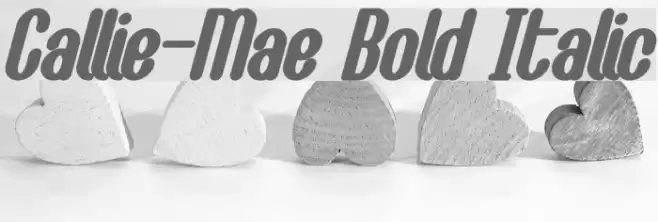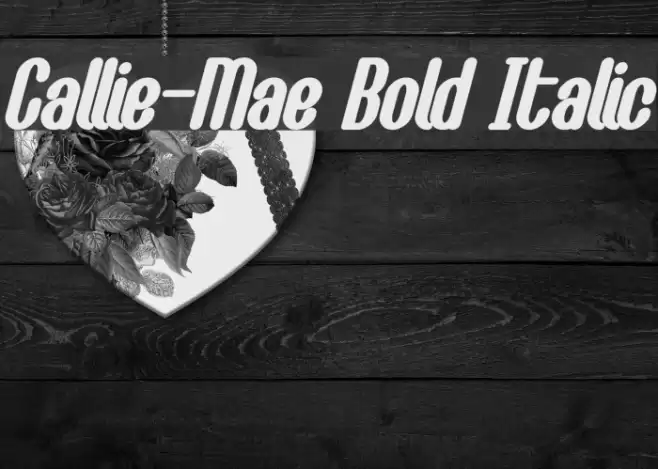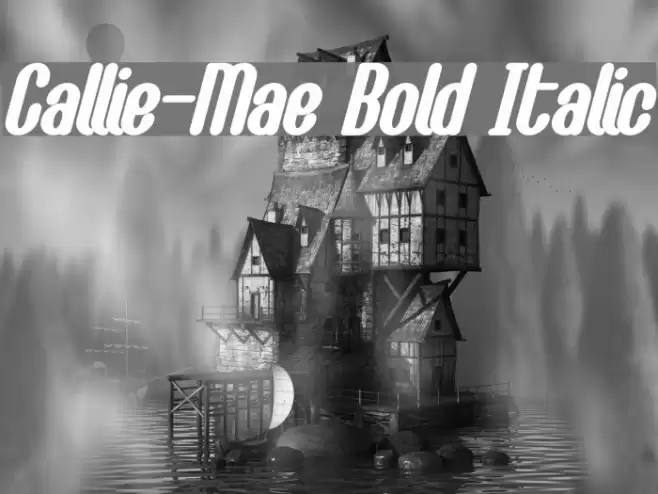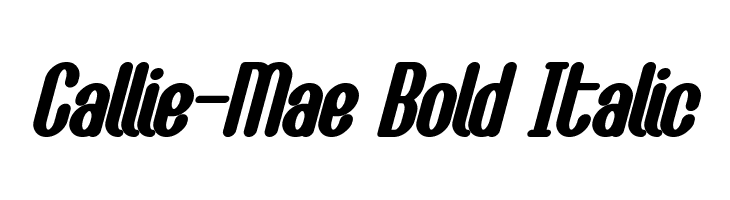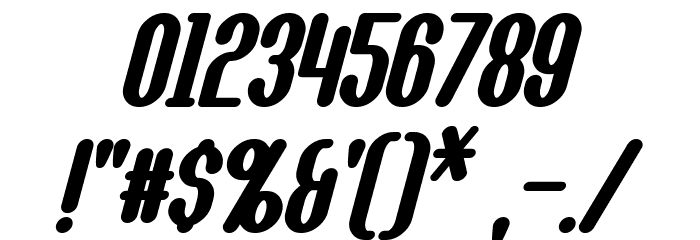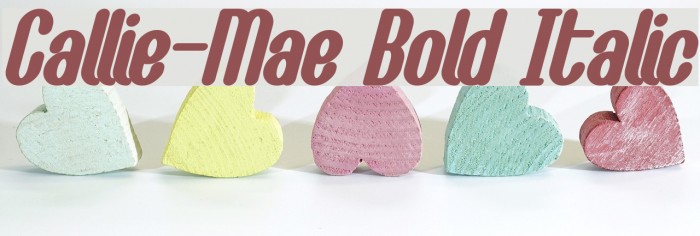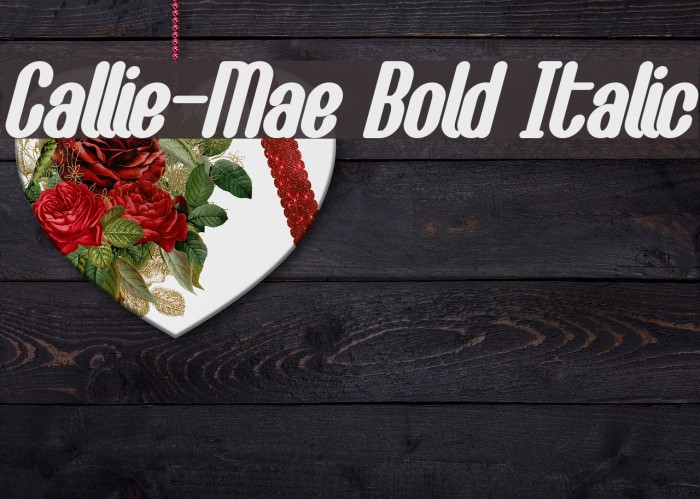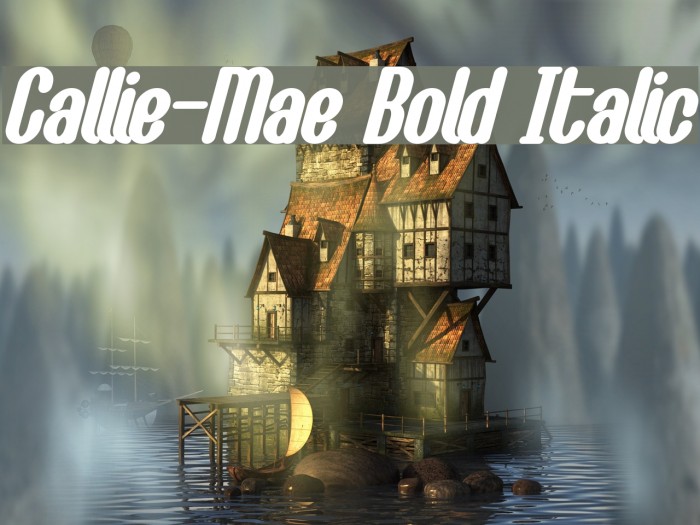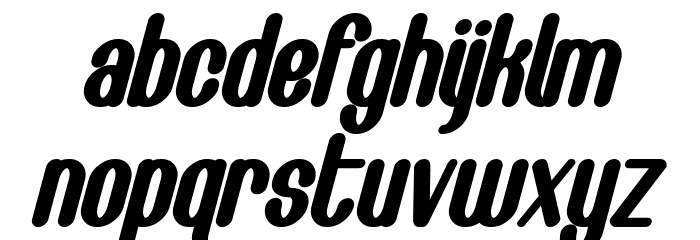
Callie-Mae Bold Italic Font
Callie-Mae Bold Italic Description
This font features a bold and italicized style with a strong presence. The characters are rounded and slightly condensed, giving it a modern and dynamic look. The uppercase and lowercase letters maintain a consistent flow, with smooth curves and a slight slant that enhances readability. The numbers and special characters are designed to match the overall aesthetic, providing a cohesive appearance across all glyphs. This font is suitable for projects that require a bold statement, combining both elegance and impact.
A bold, italicized font with rounded, slightly condensed characters from Uncategorized fonts.
- Proposed Projects: Ideal for branding, headlines, posters, and advertising materials that require a strong visual impact.